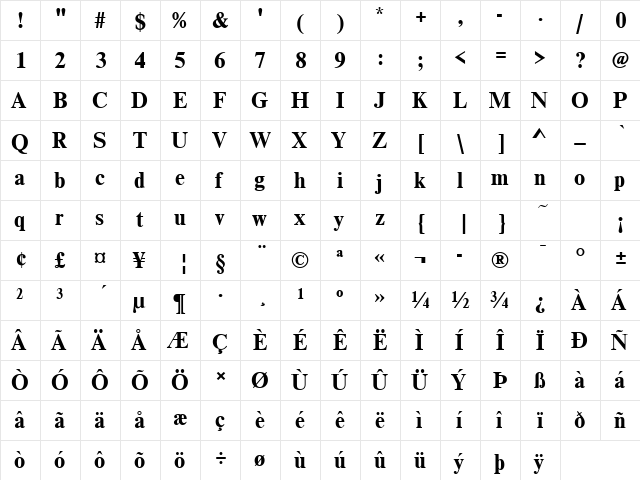
NimbusRomdBold Regular
Design Context for NimbusRomdBold Typeface
NimbusRomdBold is a composed and adaptable typeface that performs quietly and consistently across a wide range of design contexts. The heavy weight commands attention and anchors typographic hierarchies.